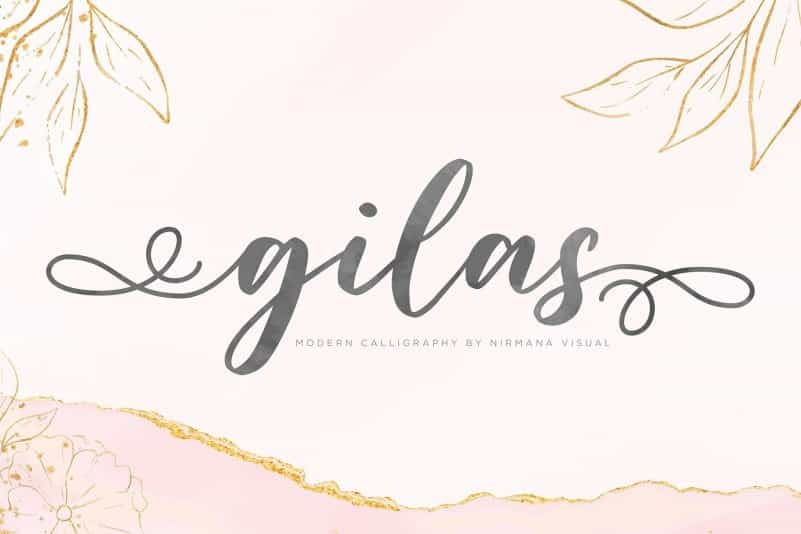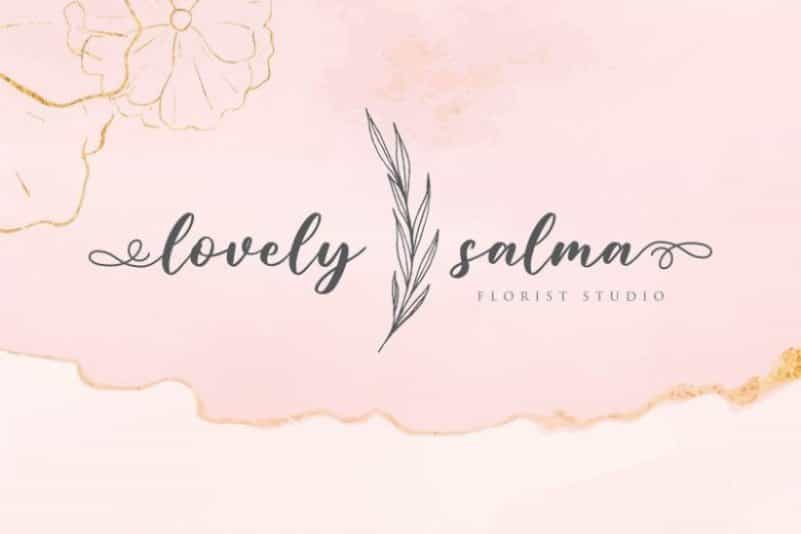
Discover Gilas Modern Calligraphy Font, part of the Calligraphy collection—a versatile and unique font perfect for adding a personal touch to your projects. Download it for free and enjoy crafting designs with style, from invitations to social media posts. This font is available exclusively for personal use, giving you the freedom to create without limits. Unlock your creativity with Gilas Modern Calligraphy Font today!
The newest style of Gilas Font is now here with the modern hand scratches type, I hope you are interested in this font, if you want to use it for your work it can be used easily and simply because it has a lot of features to contain a complete set of letters lower and uppercase letters, assorted punctuation, numbers, and multilingual support.